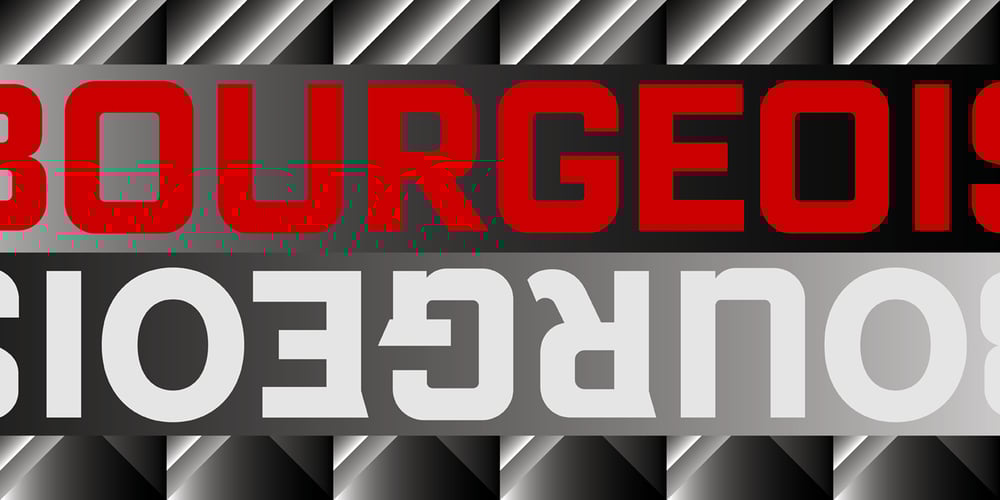
Bourgeois Font Family was designed by Marcus Leis Allion, Jonathan Barnbrook and published by Barnbrook Fonts. Bourgeois contains 24 styles and family package options. Bourgeois is a squarish geometric font that plunders mid-century modernism and gives it a contemporary edge. It speaks with a distinctive self-assuredness that makes it highly-suited to branding and identity work. With 24 styles in its 2016 form, Bourgeois is one of our most extensive, versatile and widely-used typefaces.